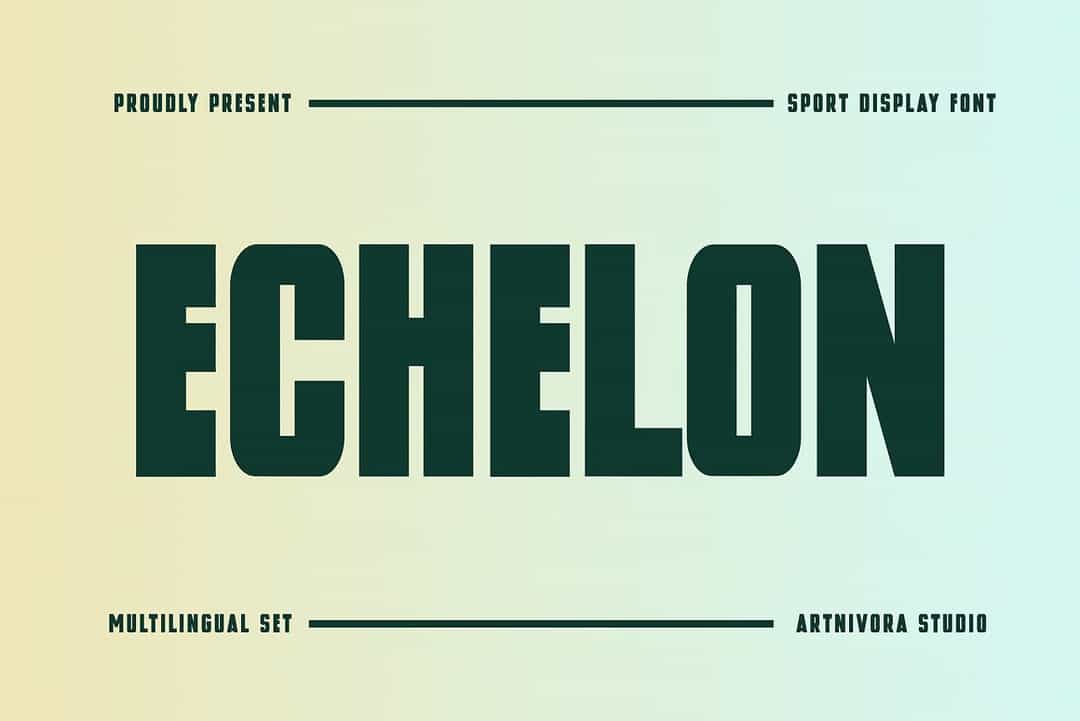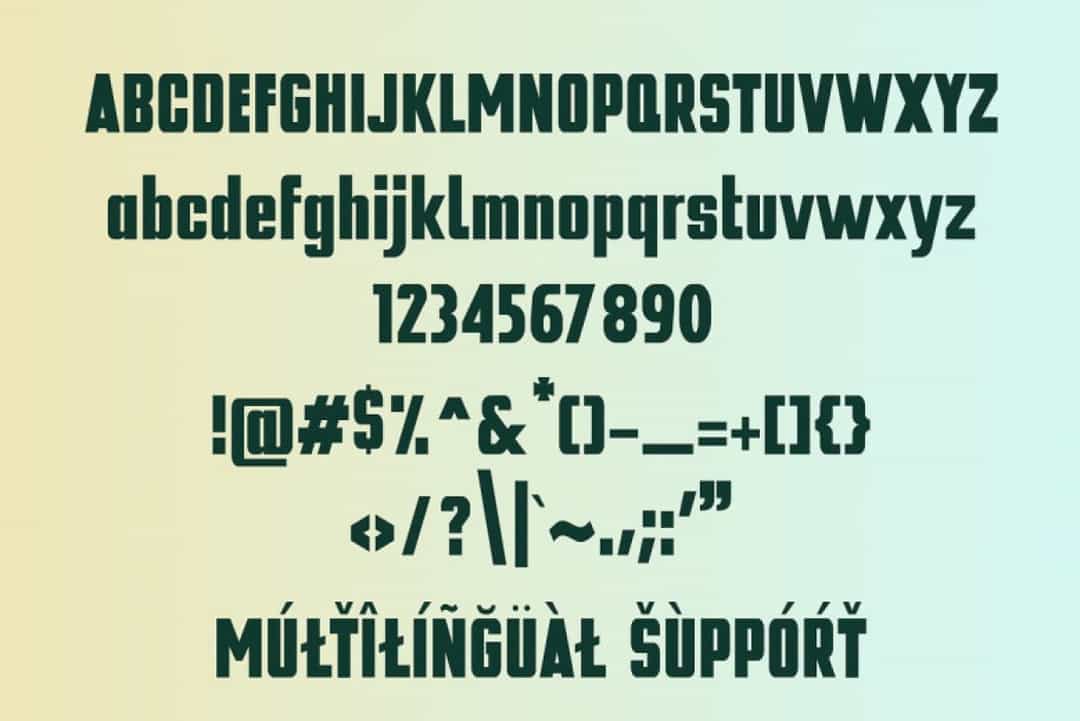
Discover Echelon Font, part of the Sans Serif Display collection—a versatile and unique font perfect for adding a personal touch to your projects. Download it for free and enjoy crafting designs with style, from invitations to social media posts. This font is available exclusively for personal use, giving you the freedom to create without limits. Unlock your creativity with Echelon Font today!
Echelon is an elegant display typeface designed to be easily read. Ideal for logo designs, magazine brochures and social media posts alike.